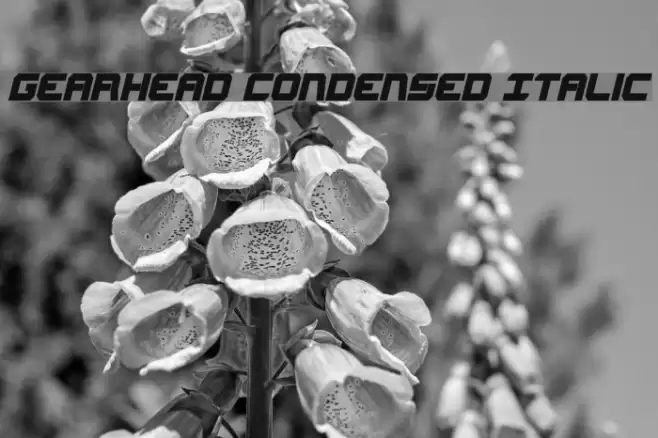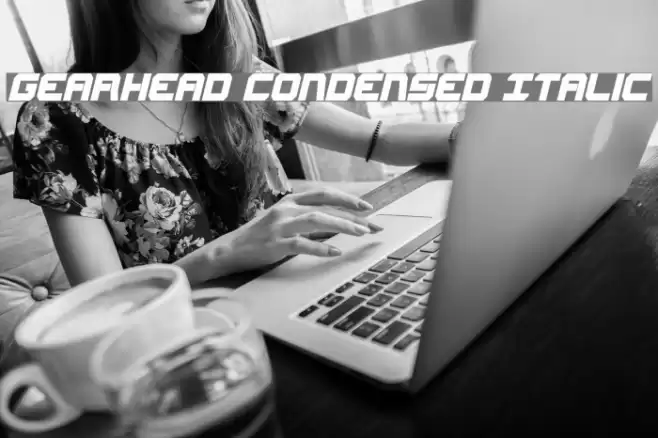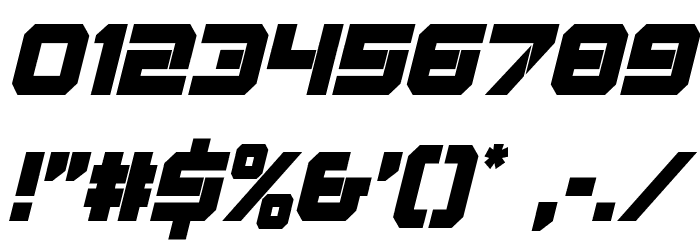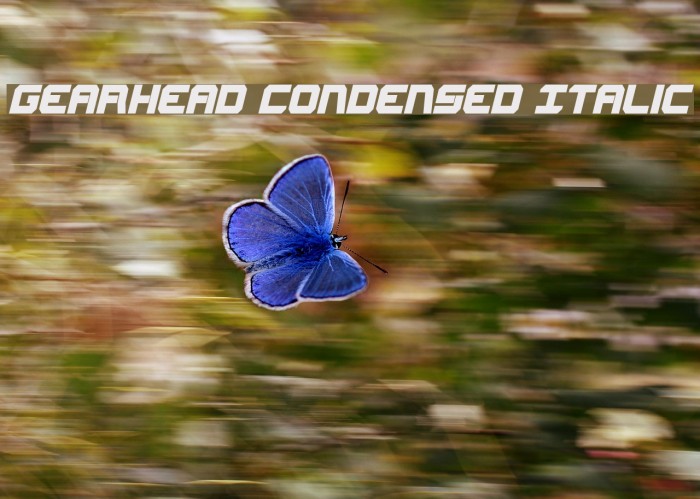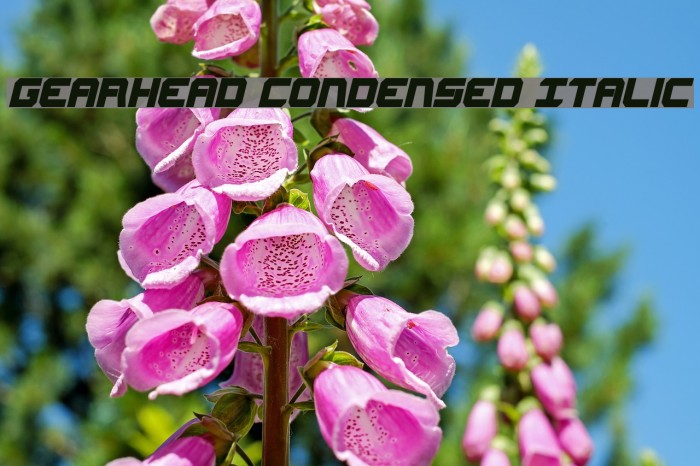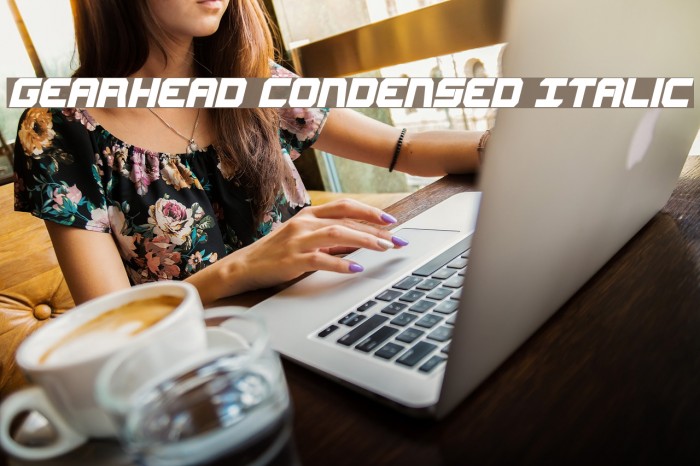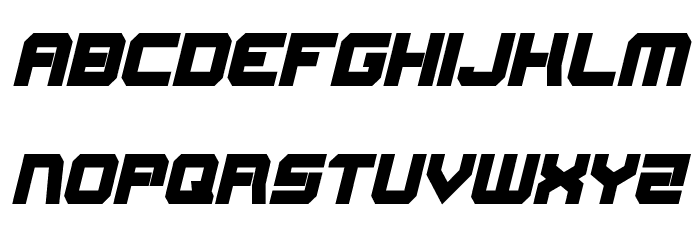
Gearhead Condensed Italic Font
Gearhead Condensed Italic Description
This font features a bold, condensed style with a distinct italic slant, giving it a dynamic and energetic appearance. The characters are angular and geometric, with sharp edges and a futuristic feel. The uppercase and lowercase letters maintain a consistent height, contributing to a uniform look across text. The numerals and special characters are designed to match the angular aesthetic, ensuring a cohesive visual experience. This font's boldness and condensed width make it ideal for impactful headlines and attention-grabbing designs.
A bold, condensed, and italic font with a futuristic, angular design from Uncategorized fonts.
- Proposed Projects: Ideal for sports branding, automotive designs, tech-related projects, and dynamic posters.
- Character Spacing: Tight